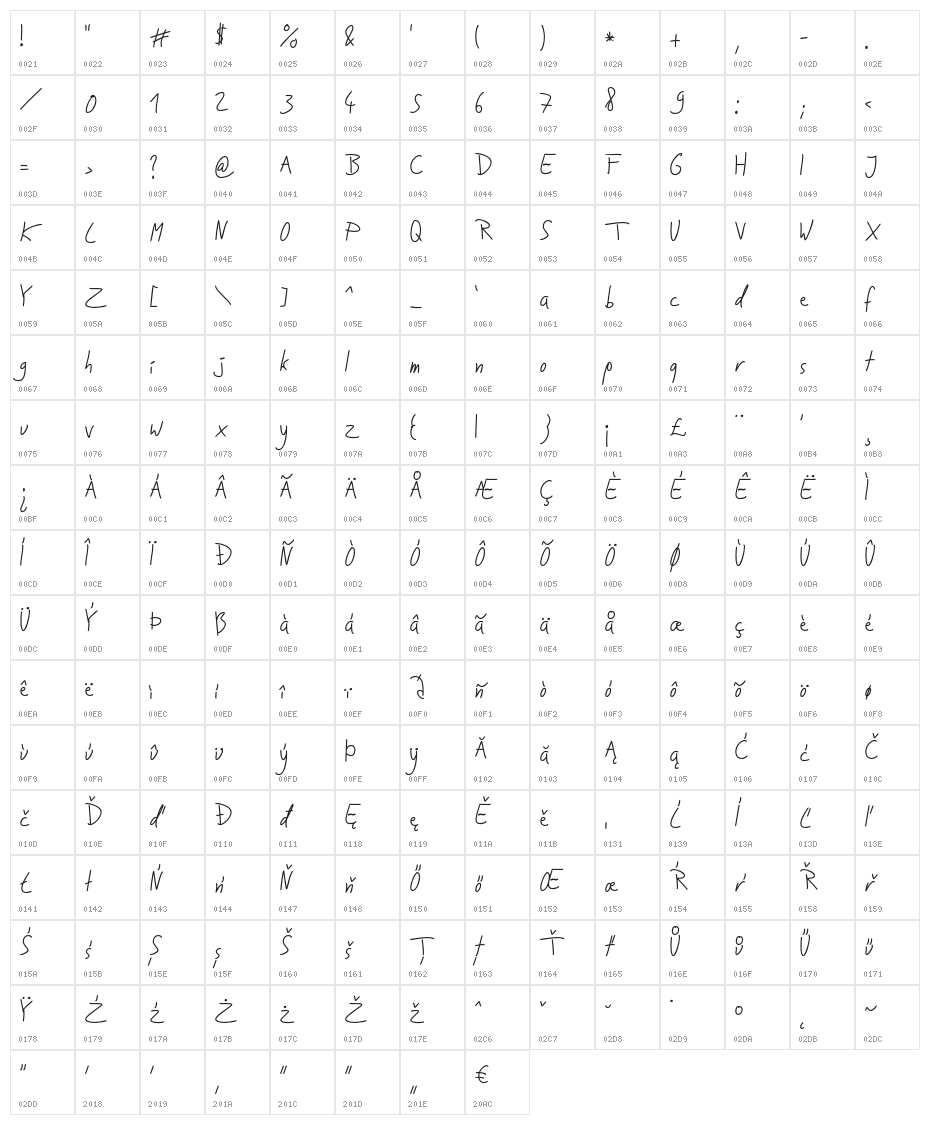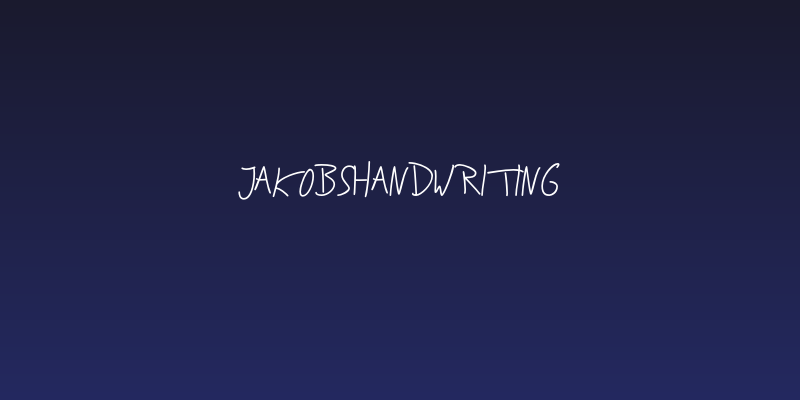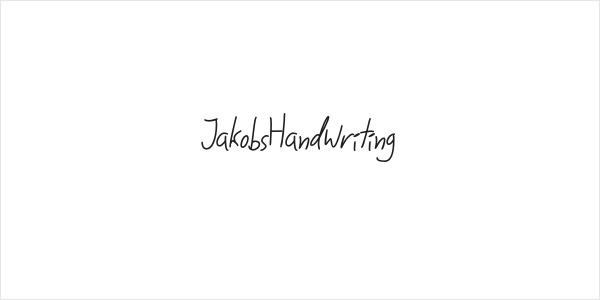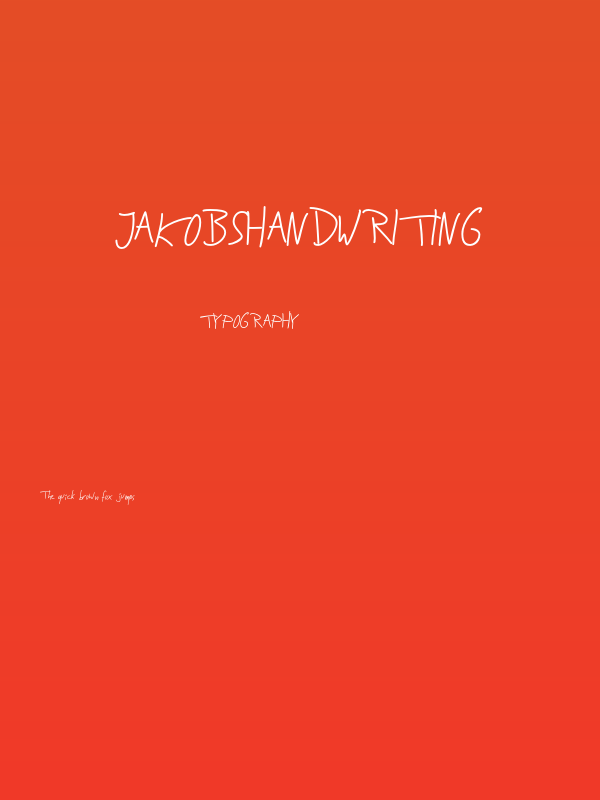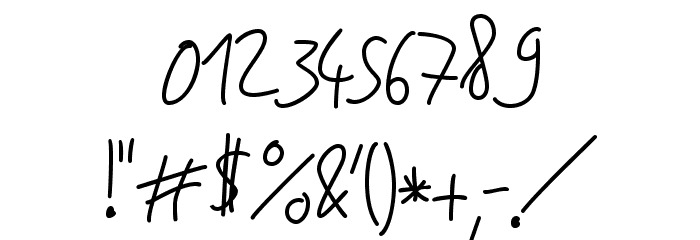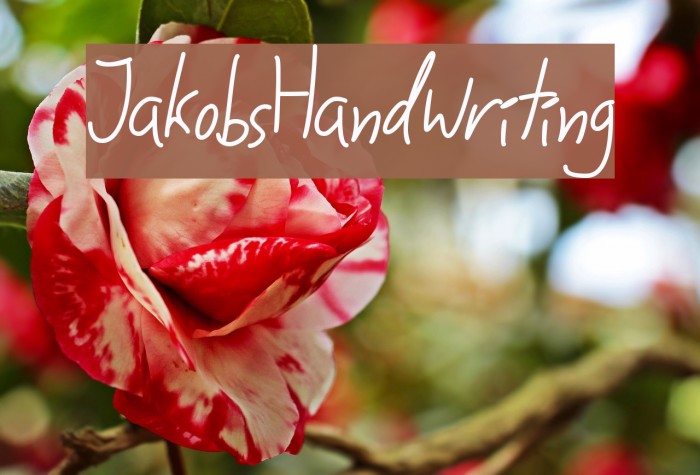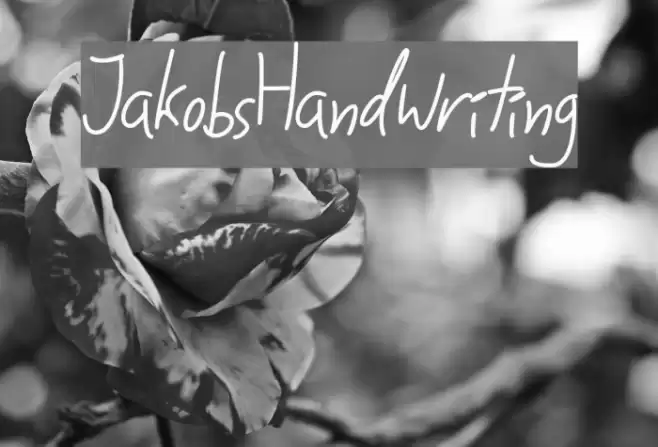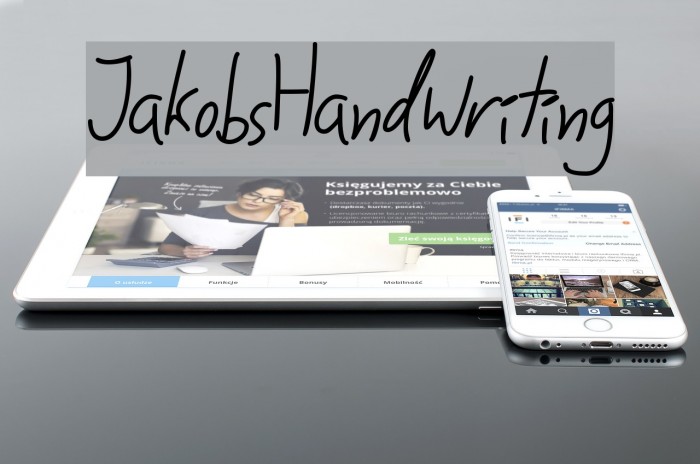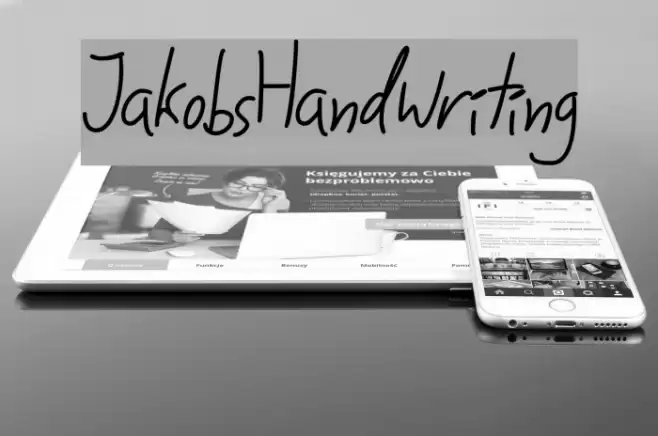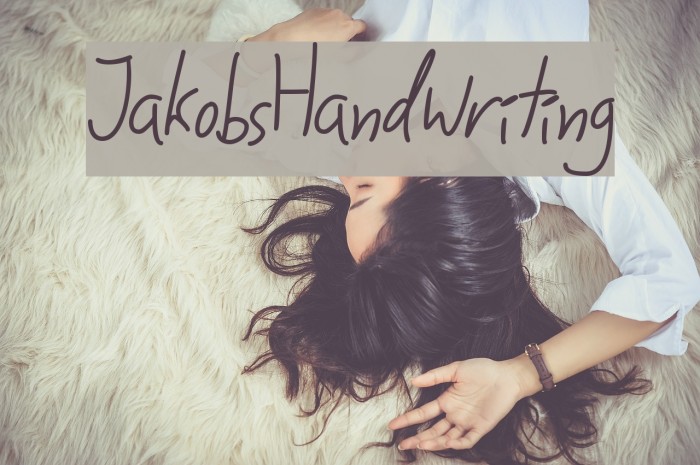
JakobsHandwriting Font
| Caz de utilizare | Invitations, Greeting cards, Personal notes |
| Proiecte propuse | Ideal for personal notes, invitations, greeting cards, and any project that requires a personal touch. |